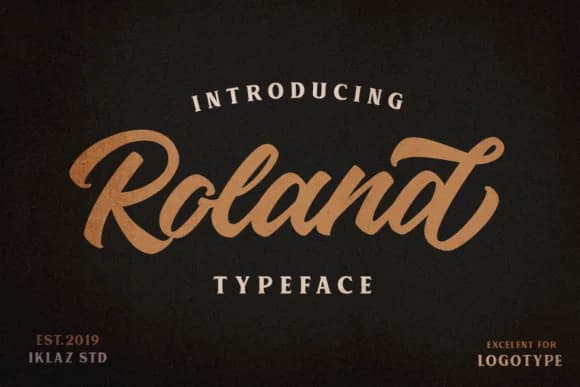
Picture yourself designing a retro diner menu or working on a vintage concert poster from decades past. Roland Font, created by IklazStudio, is built for exactly these kinds of projects. This script-handwritten typeface carries authentic mid-century character, with flowing letterforms and genuine vintage personality that brings real nostalgia to life without veering into cliche or feeling overstyled.
Roland shines across a range of practical applications where that retro sensibility actually matters. Use it for vintage cosmetics branding where sophistication counts, speakeasy bar signage that needs real character, and retro vinyl record covers that capture 1960s energy in print. Craft beer labels benefit too, where the handwritten quality reads as honest and intentional rather than artificial. Vintage-inspired wedding invitations gain immediate warmth from these letterforms, as do antique shop branding projects and retro poster designs that need visual depth and genuine personality. The typeface holds its ground at large display sizes, giving you freedom to make typography bold and prominent without sacrificing readability or impact. It's a reliable choice when the aesthetic needs to feel truly authentic.
- Elegant, Flowing, Roland Typeface
Roland Font is a script font that shines as a display or heading face. Pair it with a clean sans-serif or serif font for body text β the contrast creates a clear hierarchy while the two styles stay balanced and easy to read.
Roland Font
by IklazStudio